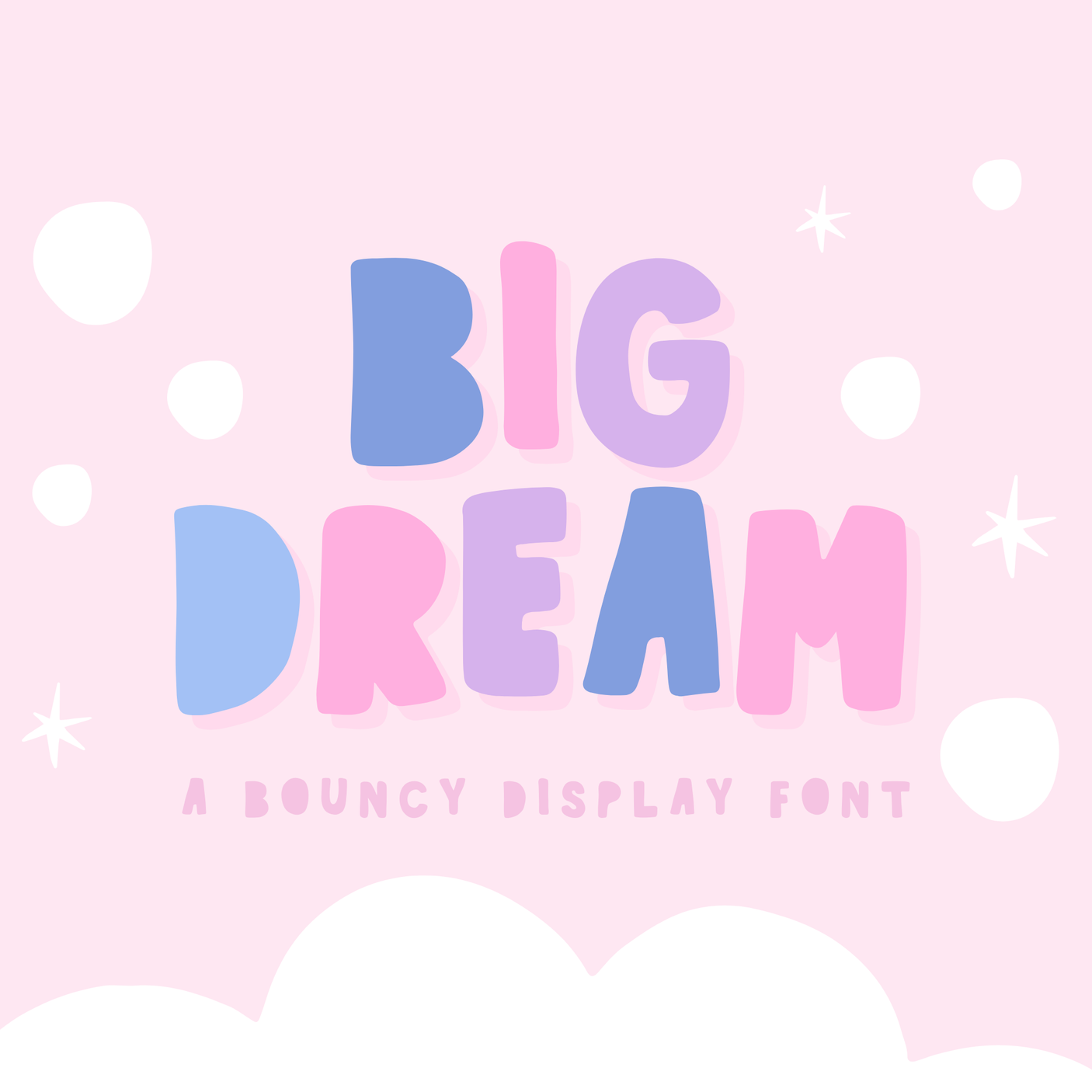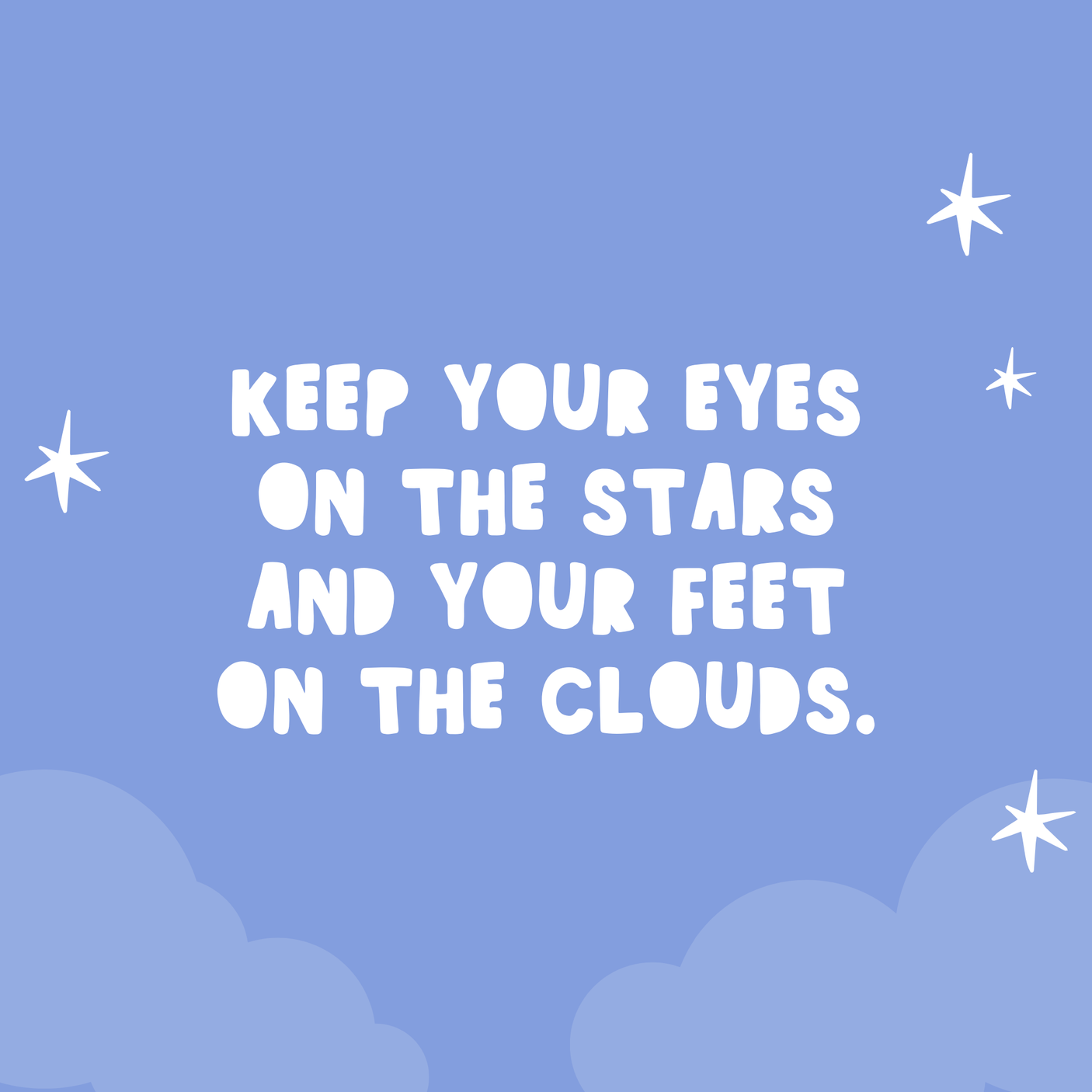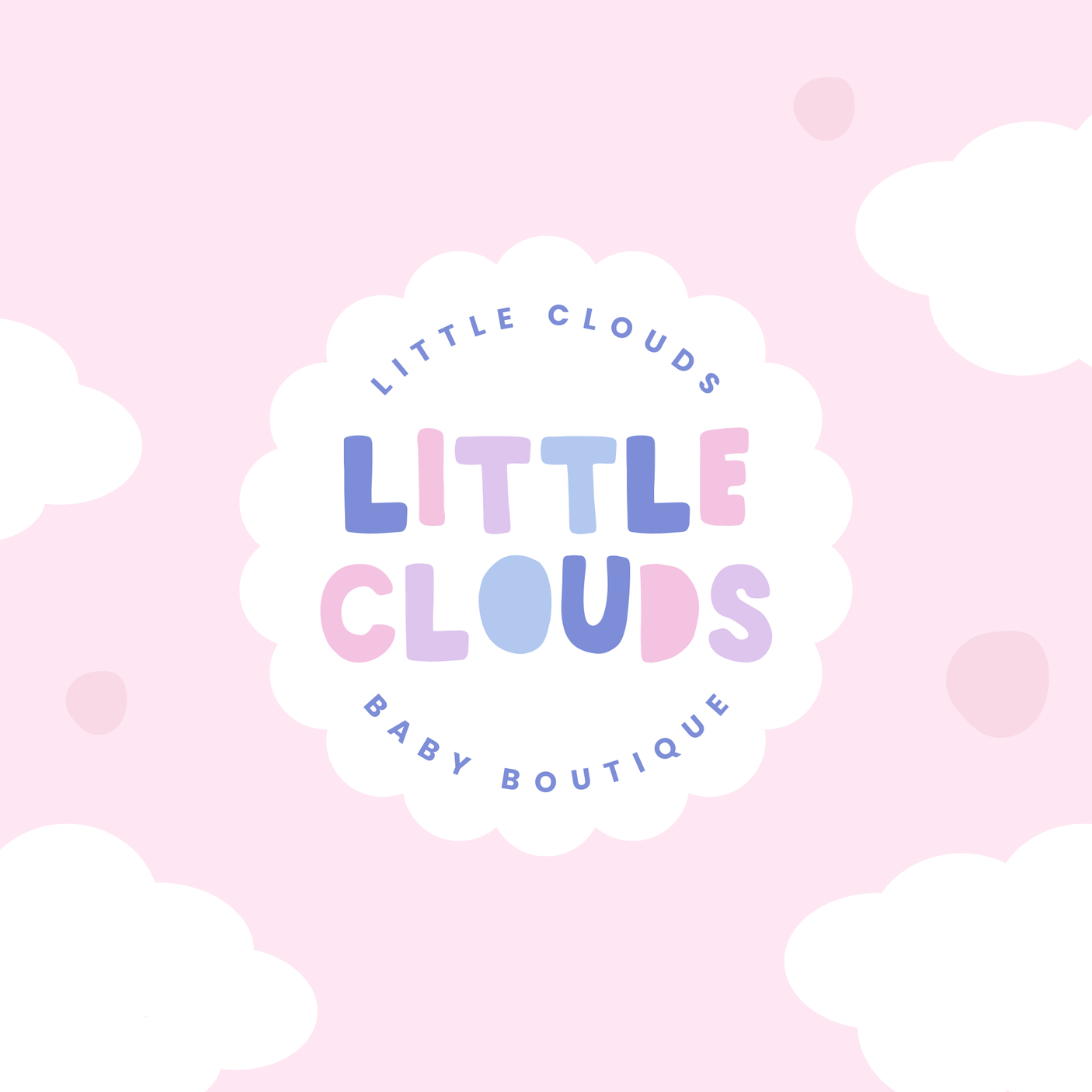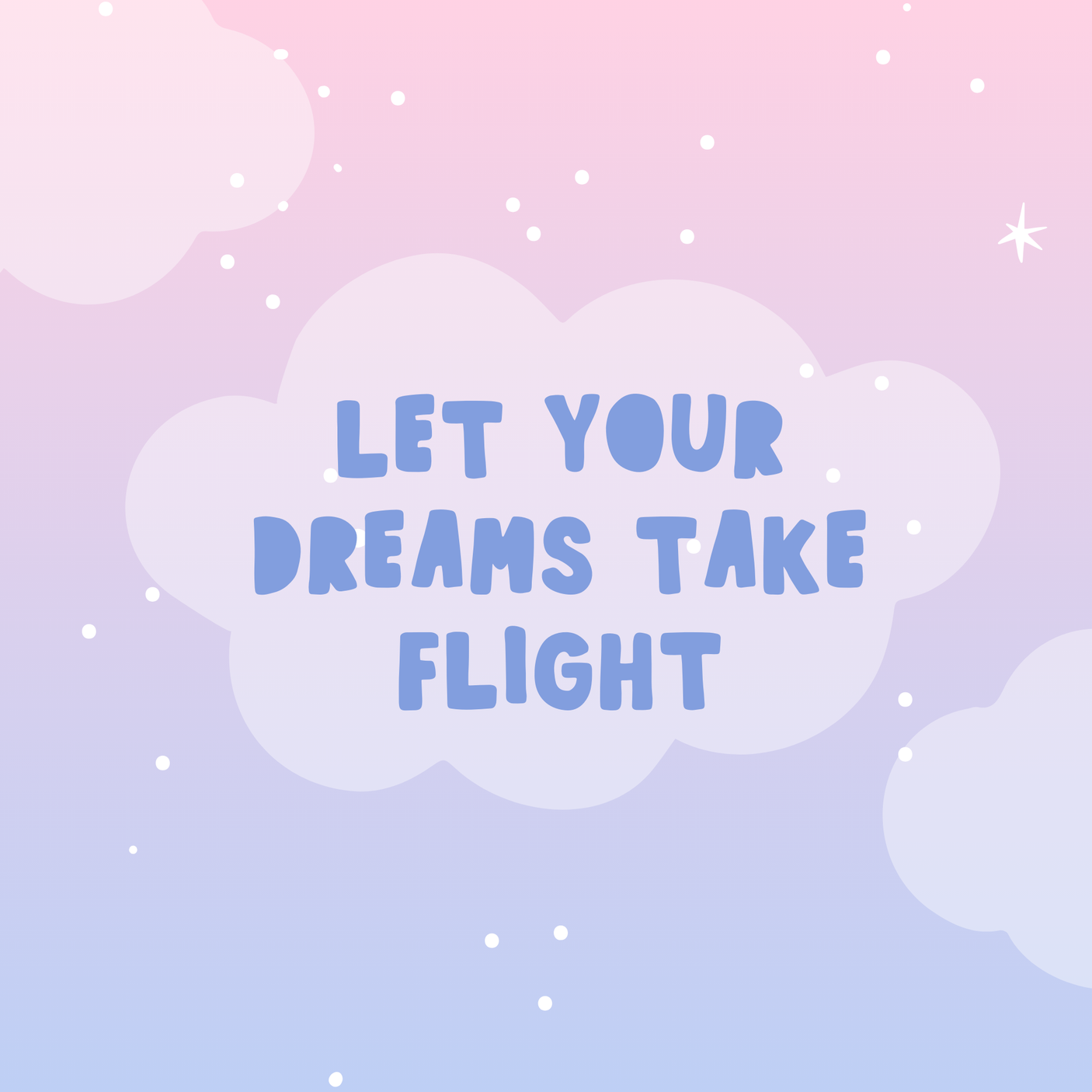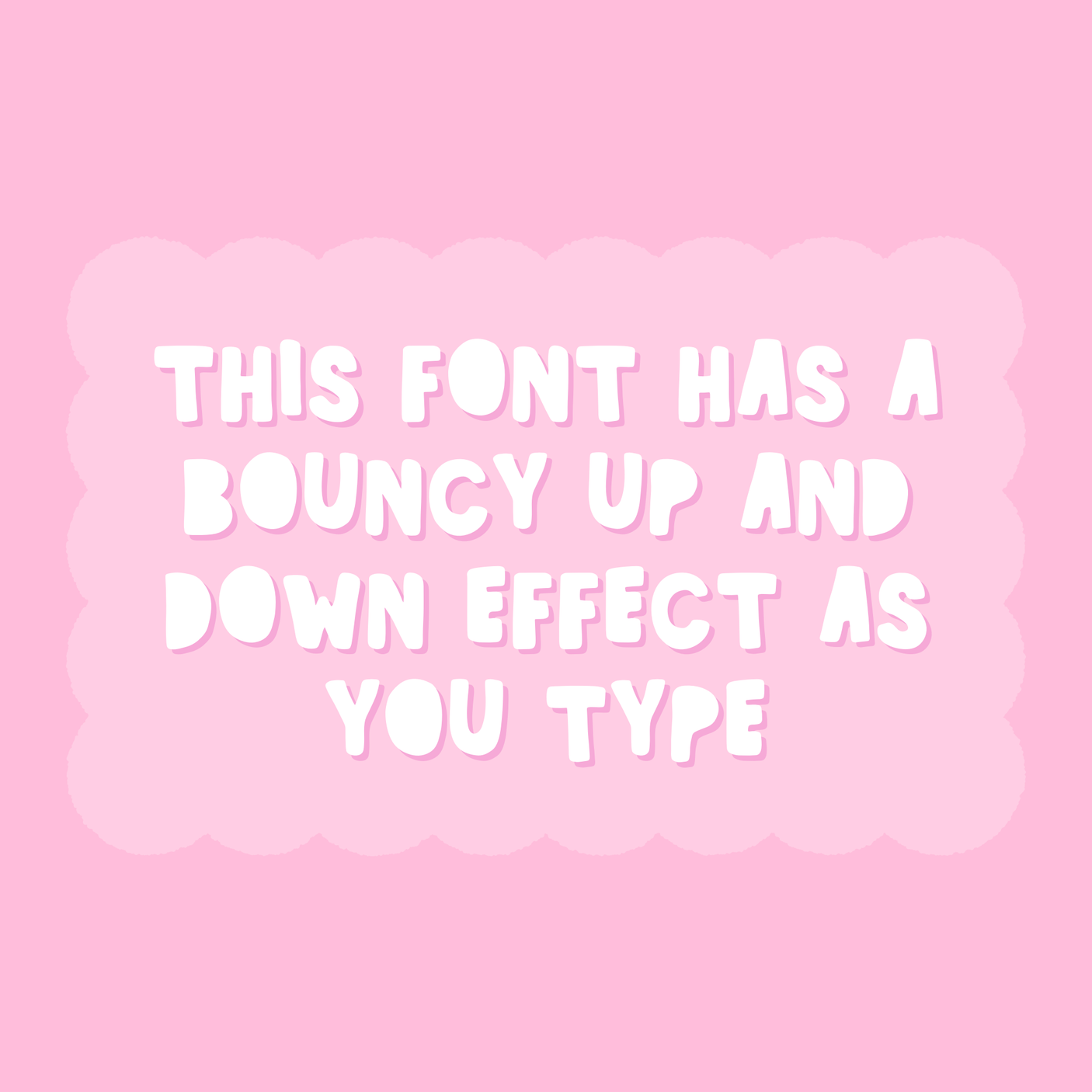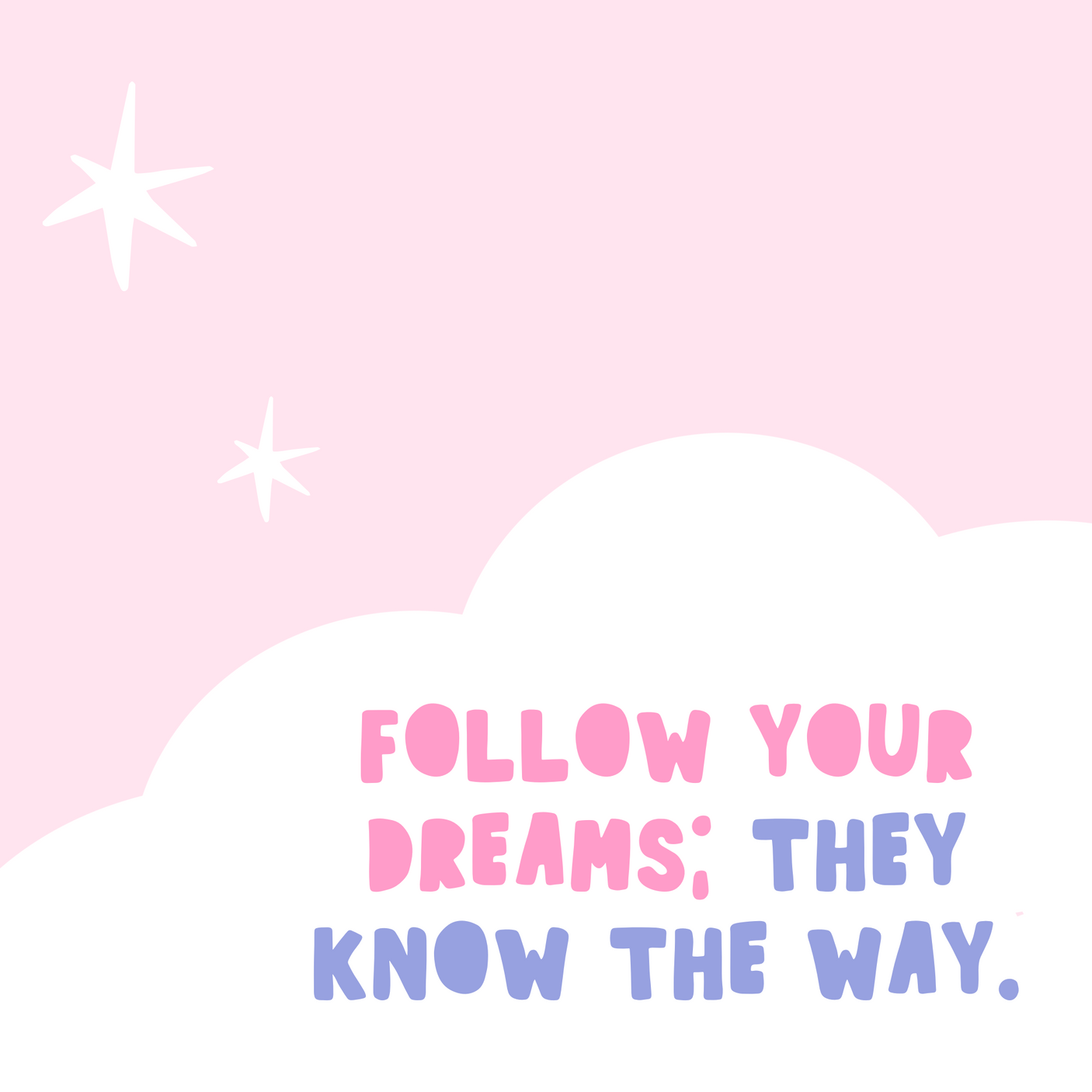
Big Dream Font
Bring your boldest ideas to life with Big Dream, a quirky font that’s all about personality! With its playful bouncy style, where characters dance up and down, this font adds a fun and carefree vibe to any design.
Why You’ll Love Big Dream:
- Bold & Unique: Stand out with its eye-catching, offbeat style.
- Bouncy Charm: Adds a whimsical, dreamy touch to your text.
- Versatile: Perfect for logos, quotes, branding, social media graphics, kids designs, or any creative project that needs a playful twist.
Create logos that pop, quotes that inspire, and designs that feel like a dream come true with Big Dream.